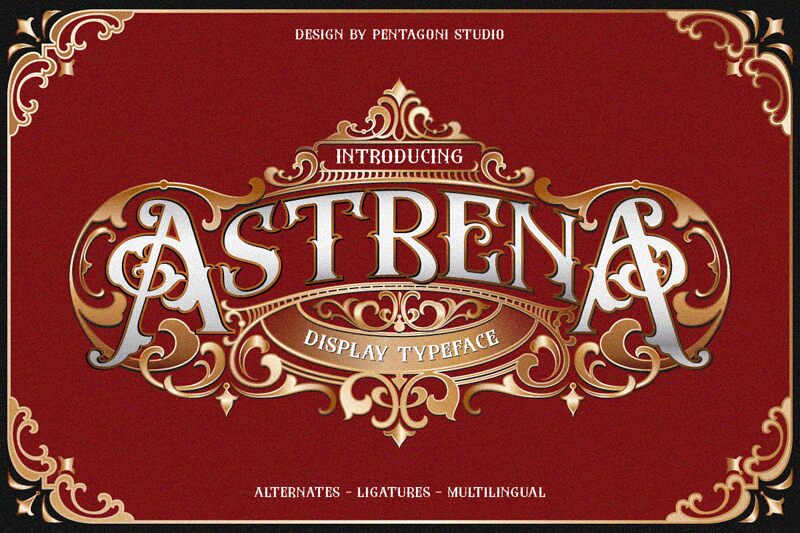
Astrena font by Pentagonistudio is a retro display typeface combining gothic-inspired elements with a vintage flair. Both ornate and decorative, this font has elegant intricate details that instantly capture the eye of its audience. The professionally designed style can serve as a focal point or accompany other typefaces to balance their lack of decorative features.
Use Astrena free display font in logos, branding designs, invitations, greeting cards, meal menus, certificates, titles and headlines of magazines and newspapers, scrapbooks or photo albums. It’s worth mentioning it looks best in large-sized prints or screens that allow all the details to shine through.